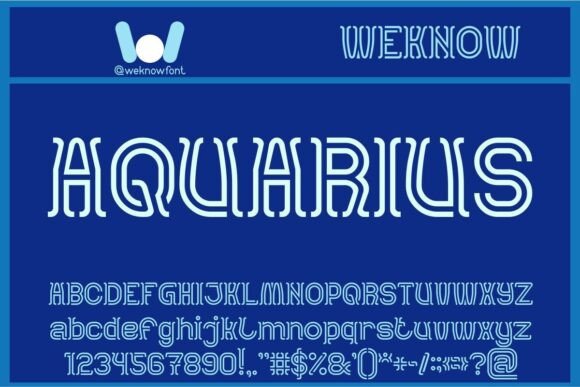
Aquarius Font: The Ultimate Retro-Futuristic Design Masterpiece
In the realm of typography, few fonts have managed to capture the essence of both past and future as seamlessly as the Aquarius font. This design masterpiece is a beautiful blend of retro-futuristic shapes and Art Deco sophistication, making it a versatile and elegant solution for a wide range of creative projects. From corporate identity and brand imagery to music, movies, games, and social media typography, Aquarius is the perfect choice for those seeking to add a touch of refined elegance to their designs.
Key Features of Aquarius Font
- Retro-Futuristic Design: Aquarius boasts a unique retro-futuristic aesthetic that is sure to turn heads. Its geometric shapes and curved lines evoke a sense of nostalgia while also feeling modern and fresh.
- Art Deco Inspiration: The font’s sophisticated curves and lines are inspired by the opulent style of Art Deco, adding a touch of luxury and glamour to any design.
- Alluring Outline Display: Aquarius is an outline display font that effortlessly enhances logos, logotypes, and headlines with an air of refined elegance.
- Versatility: This font is suitable for a wide range of applications, including apparel, music, movies, games, magazines, books, comics, and cartoons.
Aquarius in Corporate Identity and Brand Imagery
In the world of corporate identity and brand imagery, Aquarius stands out as a chic and contemporary solution. Its unique blend of retro-futurism and Art Deco sophistication makes it an ideal choice for companies seeking to establish a strong brand presence. Whether you’re looking to create a logo, develop a brand identity, or simply add a touch of elegance to your marketing materials, Aquarius is the perfect font for the job.
With Aquarius, you can create a cohesive brand image that exudes sophistication and refinement. The font’s geometric charm and curved lines make it easy to pair with other design elements, ensuring a seamless integration into your brand’s visual identity.
Aquarius in the Apparel Industry
The apparel industry is all about style, and Aquarius is the perfect font to add a touch of glamour to your brand. Whether you’re designing a logo, creating a clothing line, or simply looking for a font to use on your website, Aquarius is an excellent choice. Its retro-futuristic aesthetic and Art Deco inspiration make it a versatile solution that can be used in a variety of contexts, from streetwear to high-end fashion.
With Aquarius, you can create a unique and recognizable brand identity that sets you apart from the competition. The font’s elegant curves and lines make it easy to pair with other design elements, ensuring a seamless integration into your brand’s visual identity.
Aquarius in Digital Media
In the world of digital media, Aquarius is a game-changer. Whether you’re creating content for YouTube, Instagram, or your website, this font is sure to make your designs stand out. Its geometric charm and curved lines make it easy to read and visually appealing, ensuring that your audience will be engaged and interested in your content.
With Aquarius, you can add a touch of sophistication and elegance to your digital media projects. The font’s versatility makes it suitable for a wide range of applications, from video titles and social media graphics to website headers and blog posts.
Aquarius for Creative Projects
Aquarius is more than just a font – it’s a design solution that can elevate any creative project. Whether you’re working on a comic, cartoon, or animation, this font is sure to add a touch of magic to your designs. Its retro-futuristic aesthetic and Art Deco inspiration make it a versatile solution that can be used in a variety of contexts, from children’s books to video games.
With Aquarius, you can unleash your creativity and bring your ideas to life. The font’s elegant curves and lines make it easy to pair with other design elements, ensuring a seamless integration into your project’s visual identity.
Tips for Using Aquarius Font
- Pair with bold colors: Aquarius looks stunning when paired with bold, bright colors. Experiment with different color combinations to find the perfect match for your design.
- Use in headlines and titles: Aquarius is perfect for headlines and titles, adding a touch of elegance and sophistication to your text.
- Experiment with different sizes: Aquarius looks great in a variety of sizes, from small text to large display fonts. Experiment with different sizes to find the perfect fit for your design.
In conclusion, Aquarius font is a design masterpiece that offers a unique blend of retro-futurism and Art Deco sophistication. Its versatility makes it suitable for a wide range of applications, from corporate identity and brand imagery to music, movies, games, and social media typography. Whether you’re looking to add a touch of elegance to your designs or simply seeking a font that will make your projects stand out, Aquarius is the perfect choice.
With Aquarius, you can unleash your creativity and bring your ideas to life. Its elegant curves and lines make it easy to pair with other design elements, ensuring a seamless integration into your project’s visual identity. So why wait? Try Aquarius font today and experience the ultimate merger of past and future.